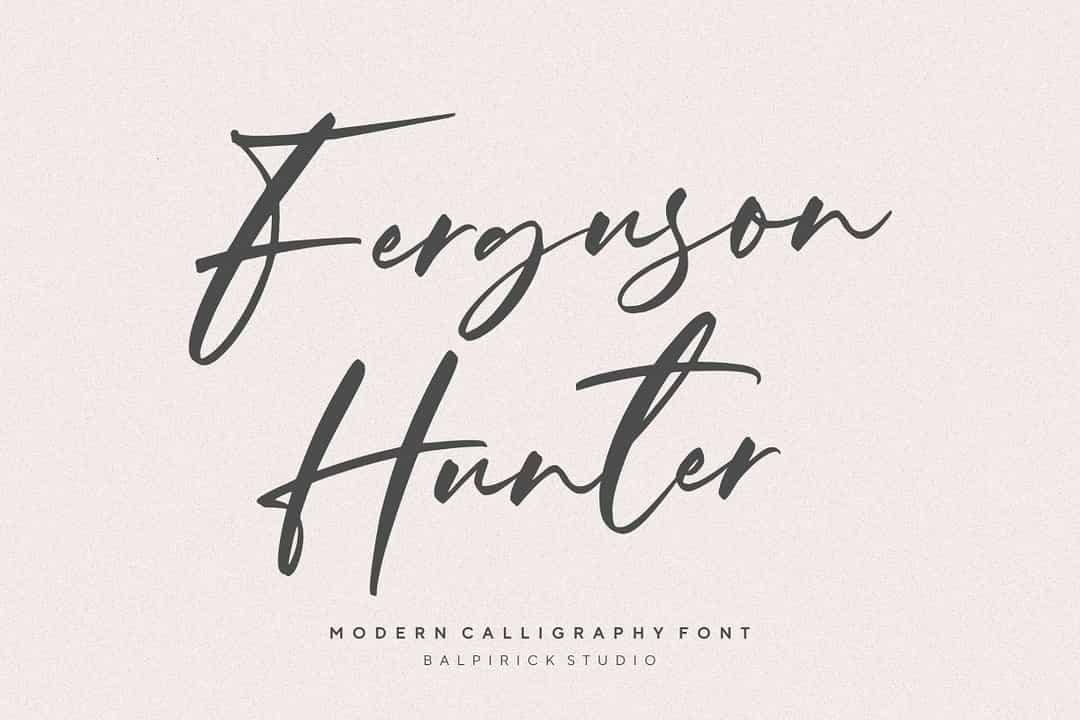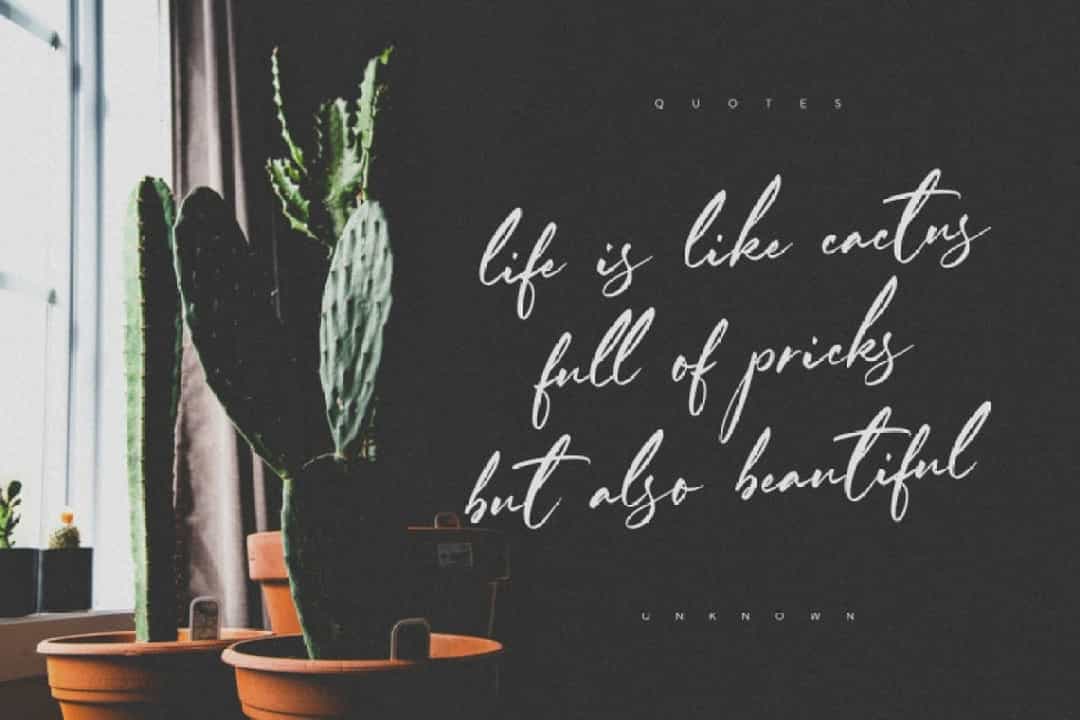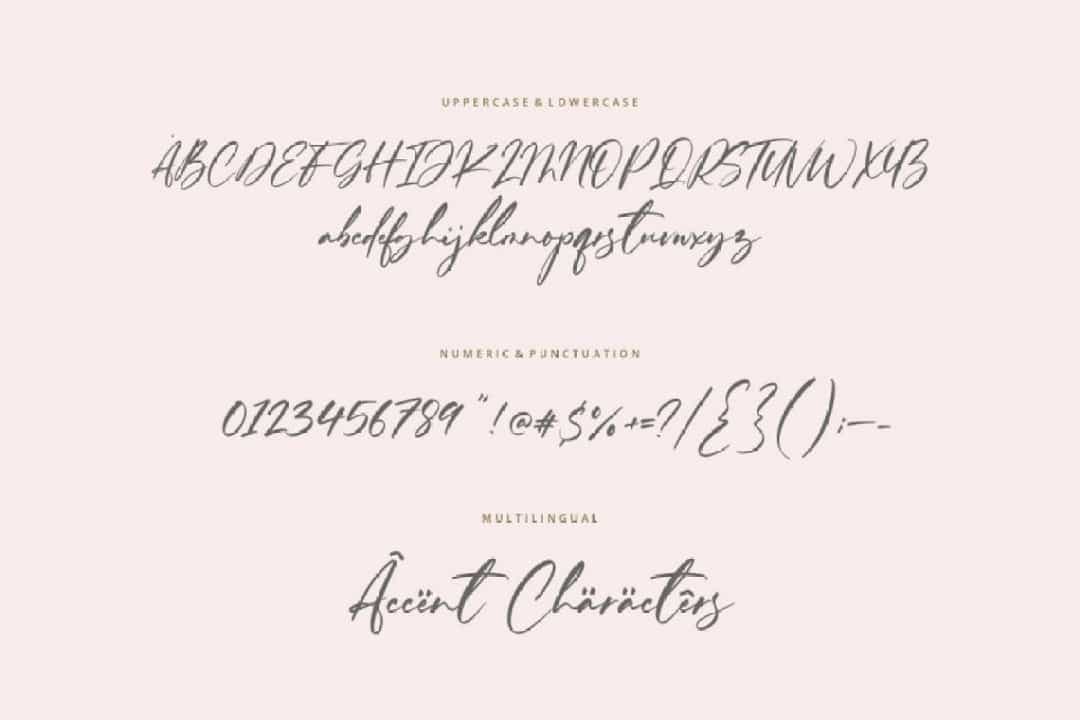
Ferguson Hunter is an elegant script font featuring adorable, cute characters that seem to dance around on the ground. Ideal for any subject matter and event, Ferguson Hunter will add value to any work by providing its beautiful script font style.